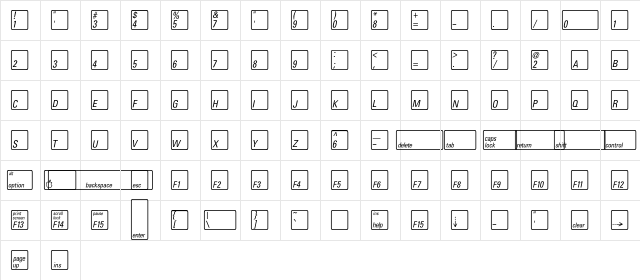
KeyFontUSA-Bold Regular
Design Context for KeyFontUSA-Bold Typeface
KeyFontUSA-Bold takes a measured approach to typography — its balanced proportions and neutral character make it a reliable workhorse for both digital and print work. Its bold stroke weight gives it real presence on the page.